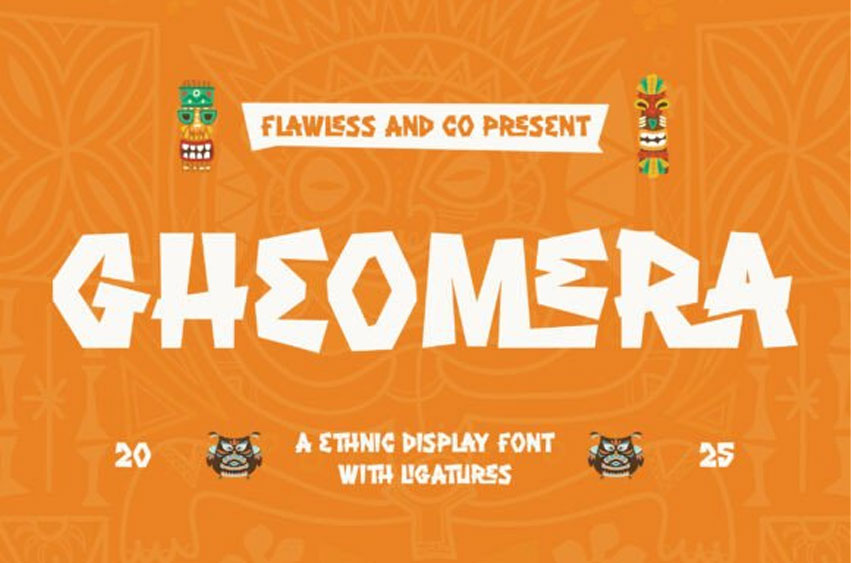
Gheomera Font
Gheomera Font is a bold, ethnic display font inspired by tribal culture and folklore vibes. Perfect for playful branding, tropical themes, and creative projects that need a strong, handcrafted look.
Make your design beat with tradition, character, and wild creative expression — only with Gheomera. Comes with unique ligatures for extra character!